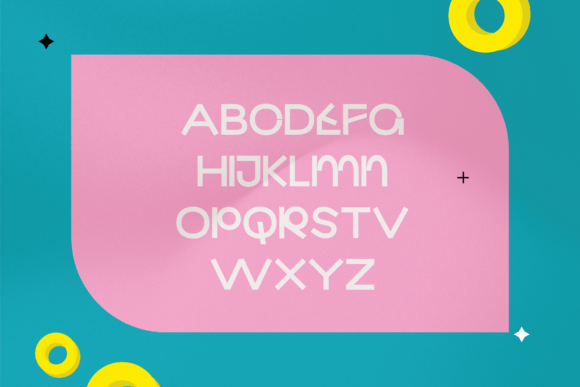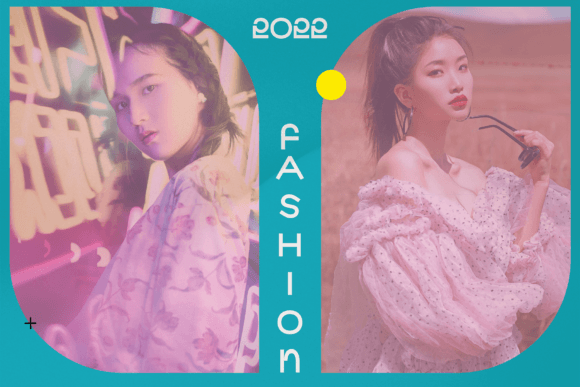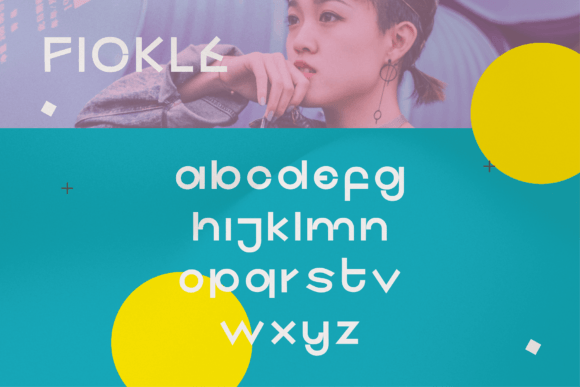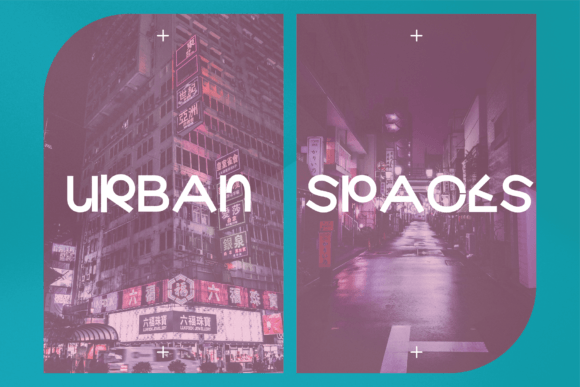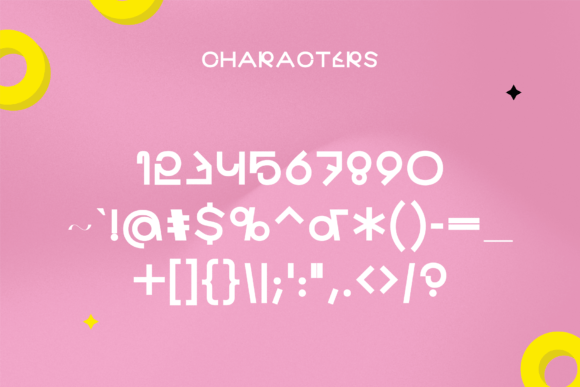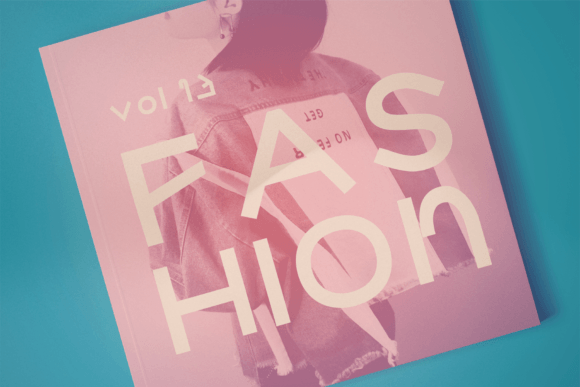
Fickle Font: The Quirky Sans-Serif Typeface Inspired by Korean Culture
In the world of design, a font can make all the difference. It can elevate your project from ordinary to extraordinary, grab attention, and convey your message with style. If you’re a designer or crafty enthusiast looking for a unique and quirky font to spice up your designs, look no further than Fickle Font. In this article, we’ll dive into the world of Fickle, exploring its inspiration, features, and uses.
The Inspiration Behind Fickle Font
Fickle Font is a sans-serif display typeface inspired by the vibrant and eclectic culture of Korea. The font’s creator drew inspiration from the country’s bold and playful aesthetic, resulting in a typeface that is both quirky and captivating. With its unique blend of Asian flair and modern sensibilities, Fickle Font is perfect for designers looking to add a touch of excitement to their projects.
The Features of Fickle Font
Fickle Font boasts a range of features that make it stand out from the crowd. Its sans-serif design gives it a clean and modern look, while its quirky and irregular shapes add a playful touch. The font is highly legible, even at small sizes, making it versatile for use in various design applications. Whether you’re creating social media graphics, YouTube thumbnails, or packaging designs, Fickle Font is sure to make your project pop.
Uses for Fickle Font
The possibilities are endless when it comes to using Fickle Font. Here are some ideas to get you started:
- Social Media Graphics: Add a bold and eye-catching touch to your social media posts with Fickle Font. Use it to create engaging graphics, quotes, and announcements that will stop people from scrolling.
- YouTube Thumbnails: Create attention-grabbing thumbnails for your YouTube videos with Fickle Font. Its bold and quirky design will help your video stand out in a crowded YouTube landscape.
- Spotify Playlist Covers: Give your Spotify playlists a stylish makeover with Fickle Font. Use it to create bold and colorful covers that reflect your music taste.
- Fashion Projects: Add a touch of Korean flair to your fashion designs with Fickle Font. Use it to create bold and stylish typography for clothing labels, fashion magazines, or runway shows.
- Canva Templates: Use Fickle Font to create stunning Canva templates for your clients or personal projects. Its versatility and legibility make it perfect for a wide range of design applications.
- Posters: Create eye-catching posters with Fickle Font that will grab attention and convey your message with style.
- Web Design: Add a touch of quirkiness to your website with Fickle Font. Use it to create bold and engaging headings, titles, and captions.
- Packaging: Use Fickle Font to create bold and eye-catching packaging designs that will stand out on store shelves.
- Branding: Establish a strong brand identity with Fickle Font. Its unique and quirky design will help your brand stand out in a crowded market.
Why Choose Fickle Font?
With so many fonts available, why choose Fickle Font? Here are just a few reasons:
- Uniqueness: Fickle Font is a one-of-a-kind typeface that will set your designs apart from the crowd.
- Legibility: Despite its quirky design, Fickle Font is highly legible, even at small sizes.
- Versatility: Use Fickle Font for a wide range of design applications, from social media graphics to packaging designs.
- Korean Inspiration: Add a touch of Korean flair to your designs with Fickle Font, inspired by the country’s vibrant culture.
Get Creative with Fickle Font
Ready to add a touch of quirkiness to your designs? With Fickle Font, the possibilities are endless. Create strong and bold designs that will grab attention and convey your message with style. Whether you’re a seasoned designer or a crafty enthusiast, Fickle Font is the perfect addition to your design toolkit.